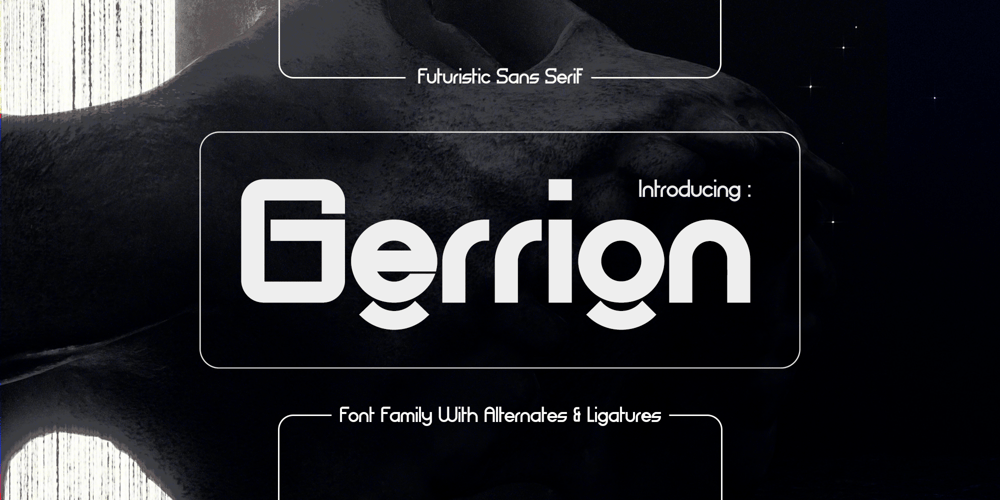
Gerrion
Gerrion font
Gerrion Font Family was designed by Frederik Aristaputra and published by Creatifont Studio. Gerrion contains 6 styles and family package options. Gerrion is a captivating futuristic sans-serif font that embodies a sense of modern sophistication. Encompassing six styles (regular, italic, semibold, semibold italic, bold, and bold italic), Gerrion offers remarkable versatility for your design endeavors. Gerrion’s letters are meticulously crafted with clean, geometric shapes. This focus on sharp lines and perfect curves creates a crisp and modern aesthetic, ideally suited for technological advancements, innovative products, and forward-thinking design projects.Gerrion is Ideal for: Futuristic logos and branding that demand attention and convey a sense of innovation, Website designs and user interfaces that crave a sleek and modern aesthetic, Tech product packaging and marketing materials that radiate cutting-edge style, Editorial layouts and headlines that seek a bold and futuristic look, Any design project where a clean, geometric, and forward-thinking font is desired.A SUMMARY OF WHAT’S INCLUDED: Standard Character A-Z, a-z, 0-9, Punctuation & symbols Regular, Italic, SemiBold, SemiBold Italic, Bold, and Bold Italic Style Ligatures and Alternates Included Multilingual Support Works on PC & Mac Simple installation Accessible in Adobe Creative Suite (Ai, Ps, Id, etc.) even work on Microsoft Word. PUA Encoded Characters – Fully accessible without additional design software. 🌟If you come across any issues or notice anything we might have overlooked while using this product, please feel free to reach out to us. We greatly value your feedback as it helps us enhance and refine our products. Thank you!